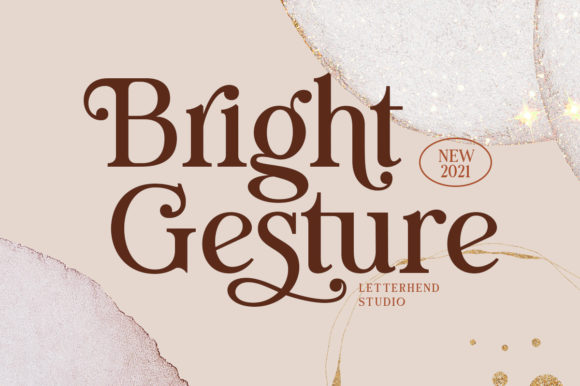
Dive into the world of elegance and sophistication with Bright Gesture, the modern serif font that captivates hearts and leaves a lasting impression. With its smooth curves, bold presence, and stylish demeanor, Bright Gesture is the epitome of timeless beauty.
Unleash your creativity and let Bright Gesture dance across your wedding invitations, adding a touch of magic to the most special day of your life. Its readability and distinctive character make it the perfect choice for creating menus, posters, and editorial designs that demand attention.
Bright Gesture's versatility extends beyond the traditional, seamlessly adapting to fashion branding, photography, and even social media posts. Its ability to elevate any design, whether classic or contemporary, makes it a must-have for designers seeking a font that speaks to the modern aesthetic.
Immerse yourself in the world of Bright Gesture and discover the endless possibilities it holds. From captivating headlines that demand attention to elegant body text that draws readers in, this font is the ultimate storyteller, weaving words into a tapestry of visual delight.
With Bright Gesture by your side, you'll embark on a creative journey where boundaries dissolve and inspiration flows freely. Its enchanting presence will transform your designs into masterpieces, leaving your audience spellbound and eager for more.